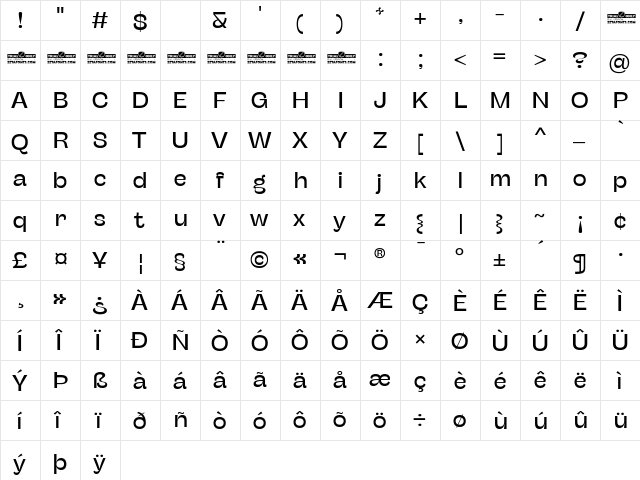
Stinger Fit Trial Regular
| Foundry | Studio Kmzero & Zetafonts |
| Designer | Cosimo Lorenzo Pancini |
Design Context for Stinger Fit Trial Typeface
Stinger Fit Trial takes a measured approach to typography — its balanced proportions and neutral character make it a reliable workhorse for both digital and print work.